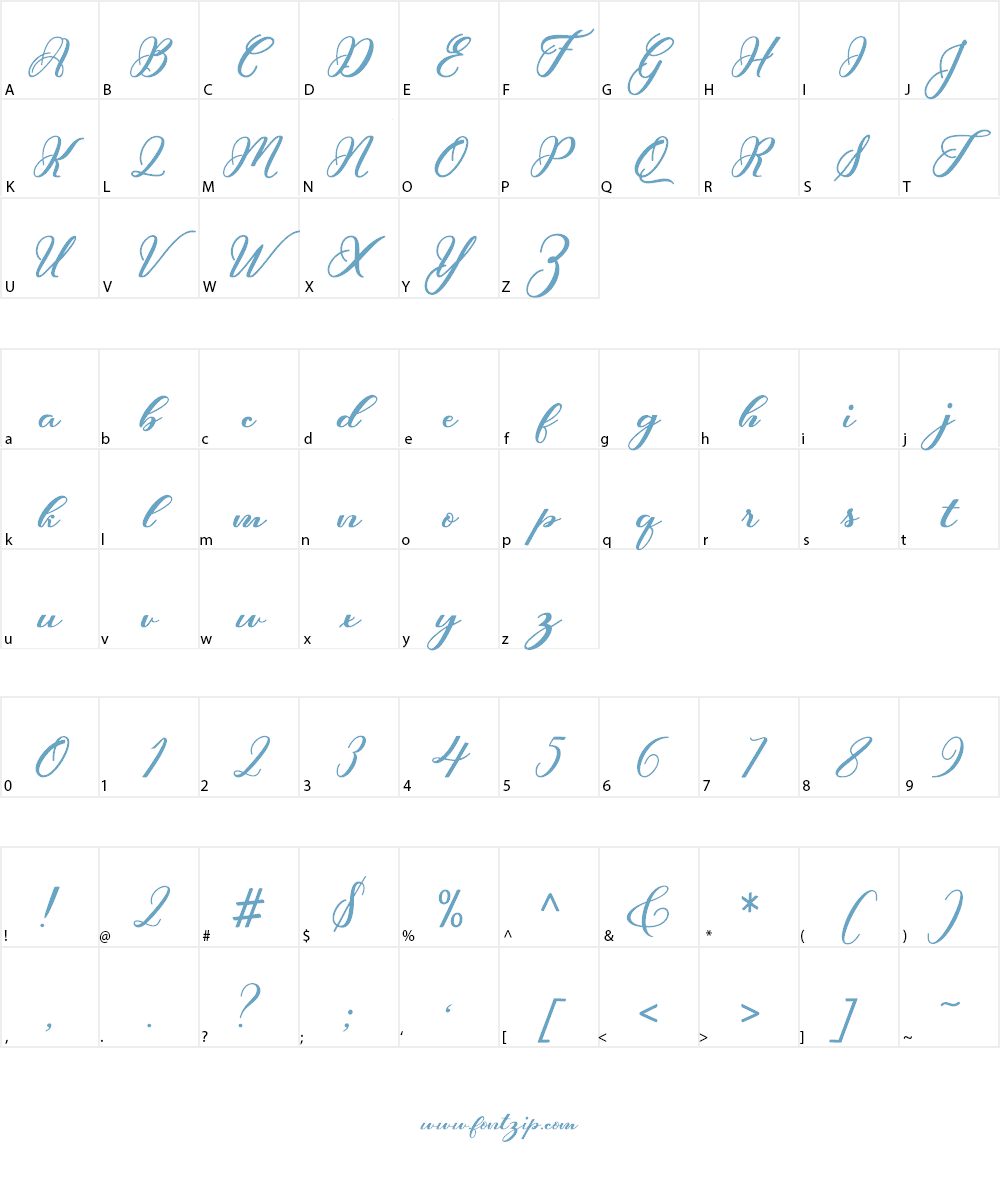
Hunkydory is an extraordinarily authentic script font with distinctive characters! Suitable for creating logos (typography), titles, posters, quotes, and more.